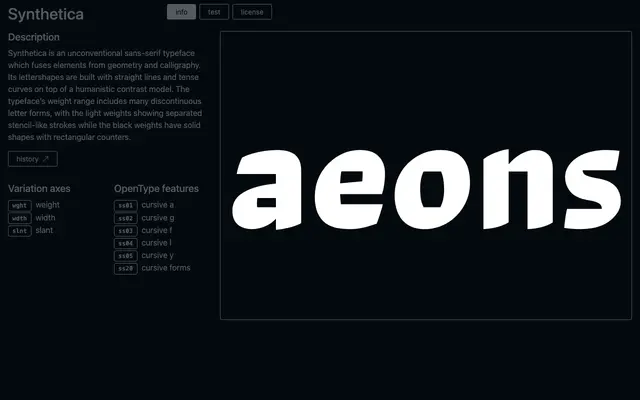
Synthetica
A variable sans-serif that merges geometric construction with calligraphic contrast, producing stencil-like open strokes in lighter weights and dense rectangular counters in heavier ones.
Built on a humanistic contrast model, Synthetica uses straight lines and tense curves to produce letterforms that shift dramatically across its weight range. At lighter settings, strokes separate into stencil-like gaps; at heavier settings, counters close into compact rectangular voids. Variable axes for weight, width and slant are supplemented by stylistic sets offering cursive alternates for a, g, f, l and y.
Described as fusing geometry and calligraphy on a humanistic contrast model, placing it firmly in the humanist sans tradition despite its unconventional construction with straight lines and tense curves.